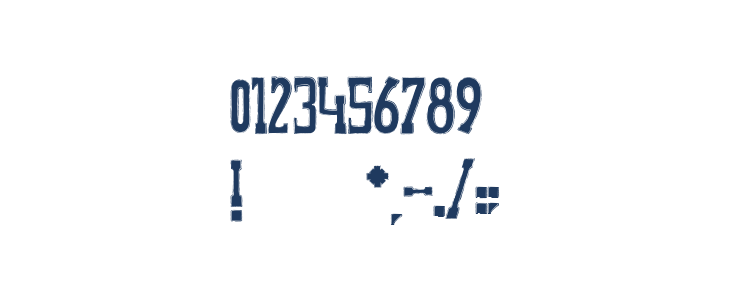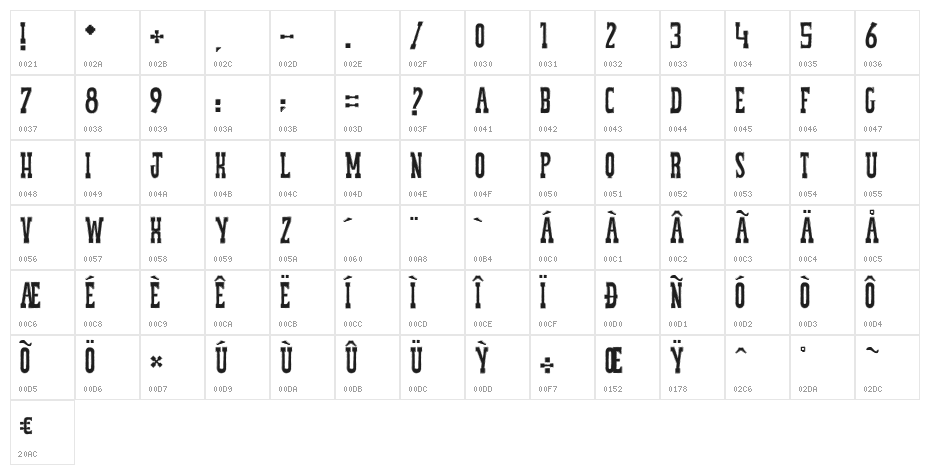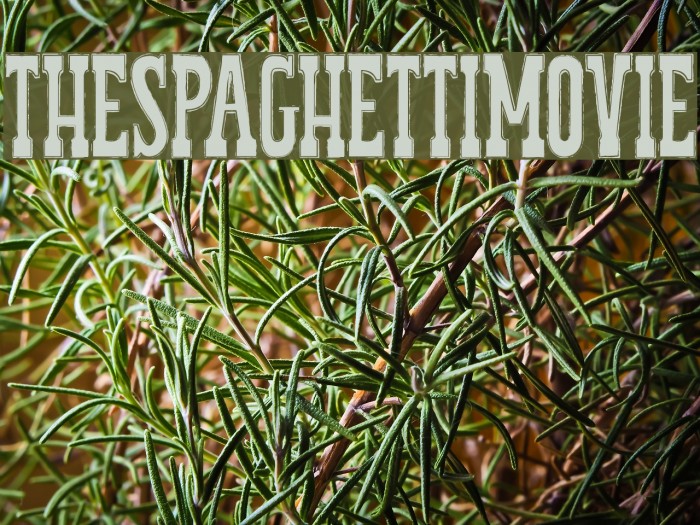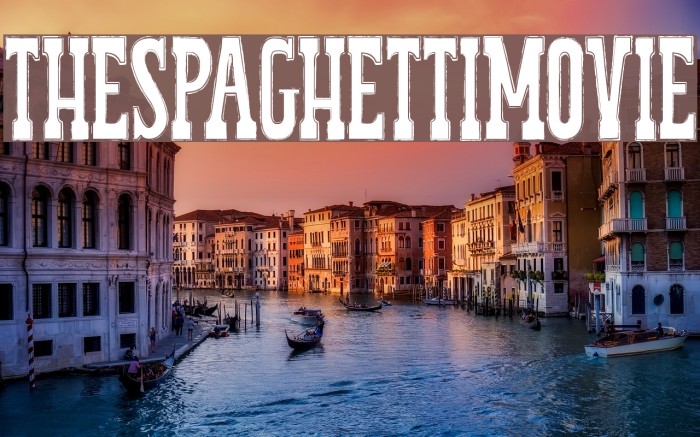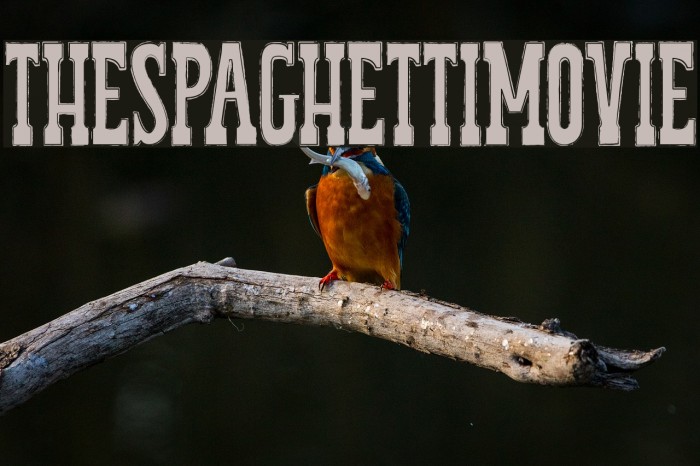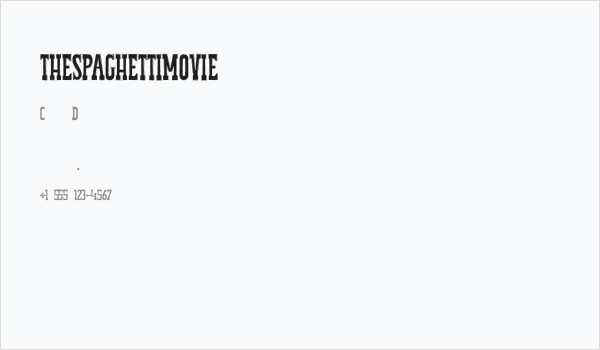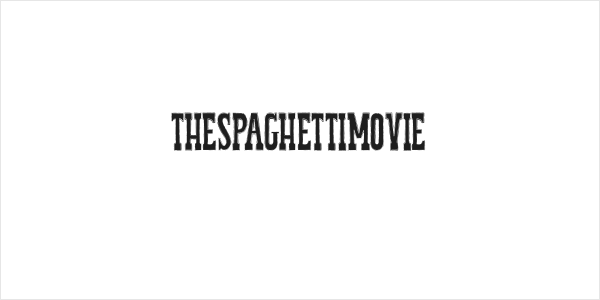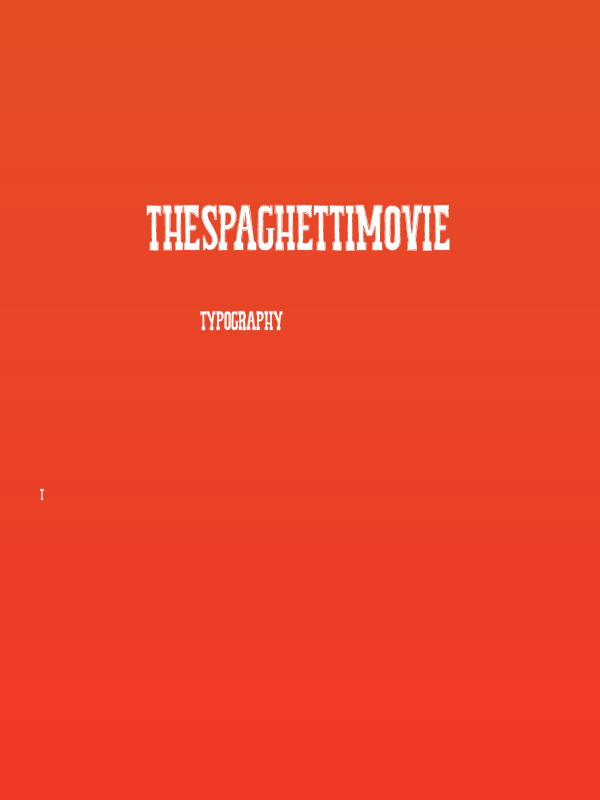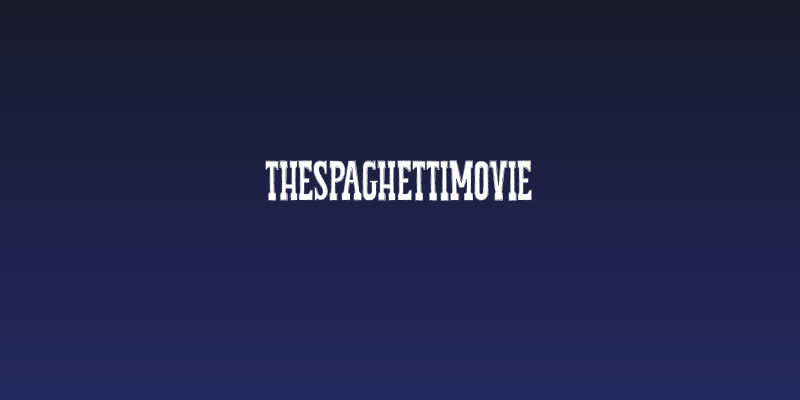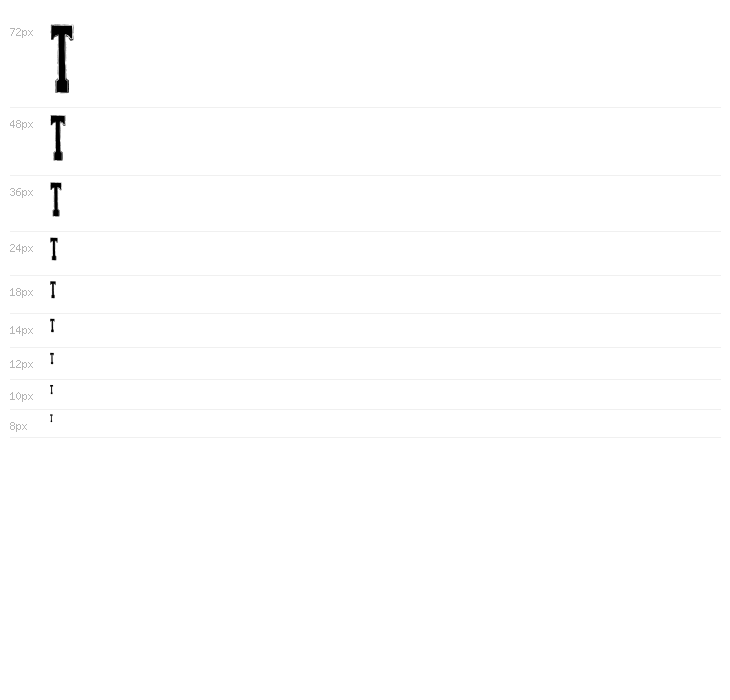
THESPAGHETTIMOVIE Font
THESPAGHETTIMOVIE Description
This font features a bold and decorative style with a vintage flair. The uppercase letters are tall and narrow, with distinct serifs that add a touch of elegance and complexity. The numbers and special characters maintain the same boldness, ensuring consistency across all glyphs. The font's unique character is enhanced by subtle variations in stroke thickness, giving it a slightly distressed appearance. This makes it ideal for projects that require a retro or classic aesthetic, such as movie posters, vintage advertisements, or themed event invitations.
| Proposed Projects | Ideal for vintage-themed posters, classic movie titles, retro advertisements, and themed event invitations. |